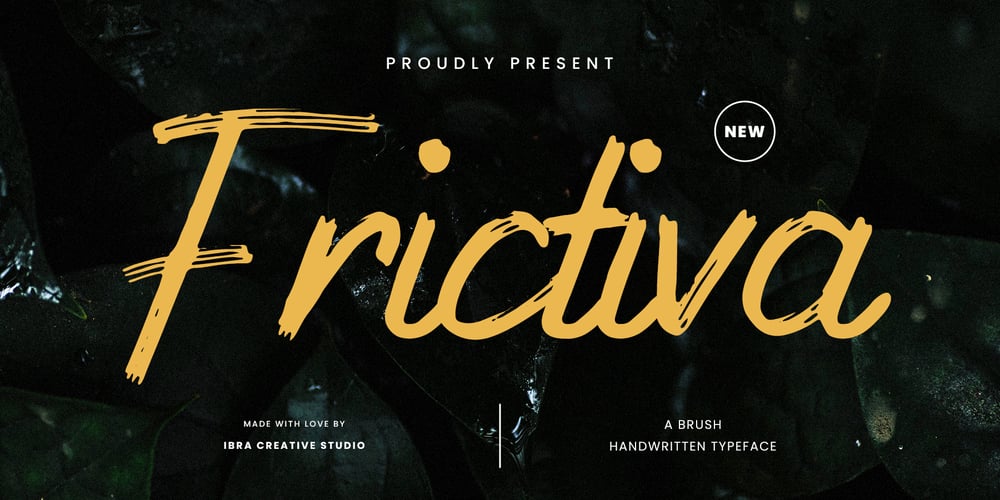
Frictiva
Frictiva font
Frictiva Font Family was designed by Roisatul Azizah and published by IbraCreative. Frictiva contains 1 styles and family package options. Frictiva – A Brush Handwritten TypefaceFrictiva is a captivating brush handwritten typeface that exudes a delightful blend of spontaneity and elegance. With each character meticulously crafted to emulate the organic strokes of a hand-drawn brush, Frictiva brings a distinctive and playful charm to any design project. The typeface seamlessly balances a sense of casual fluidity with a refined aesthetic, making it versatile for a wide range of creative applications. Whether used in branding, packaging, or digital media, Frictiva adds a touch of personality and warmth, making it a go-to choice for those seeking a stylish and dynamic script font.Frictiva is perfect for branding projects, logo, wedding designs, social media posts, advertisements, product packaging, product designs, label, photography, watermark, invitation, stationery, game, fashion and any projects.Fonts include multilingual support for; Afrikaans, Albanian, Czech, Danish, Dutch, English, Estonian, Finnish, French, German, Hungarian, Italian, Latvian, Lithuanian, Norwegian, Polish, Portuguese, Slovak, Slovenian, Spanish, Swedish.